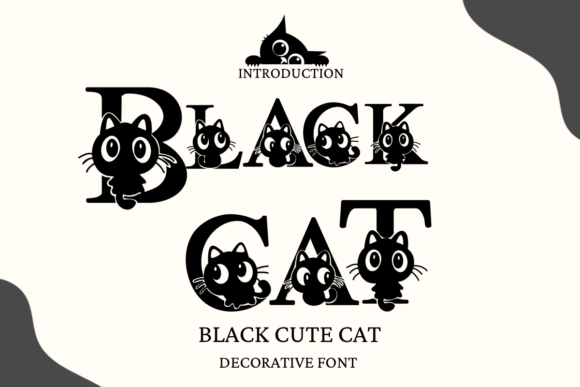
Black Cute Cat Font
Black Cute Cat is a charming decorative font where playful black cat illustrations are cleverly integrated into each letterform. With a mix of whimsy and elegance, this font is perfect for Halloween themes, pet shops, kids’ designs, greeting cards, and anything that needs a touch of feline cuteness. It’s a purr-fect blend of typography and character!